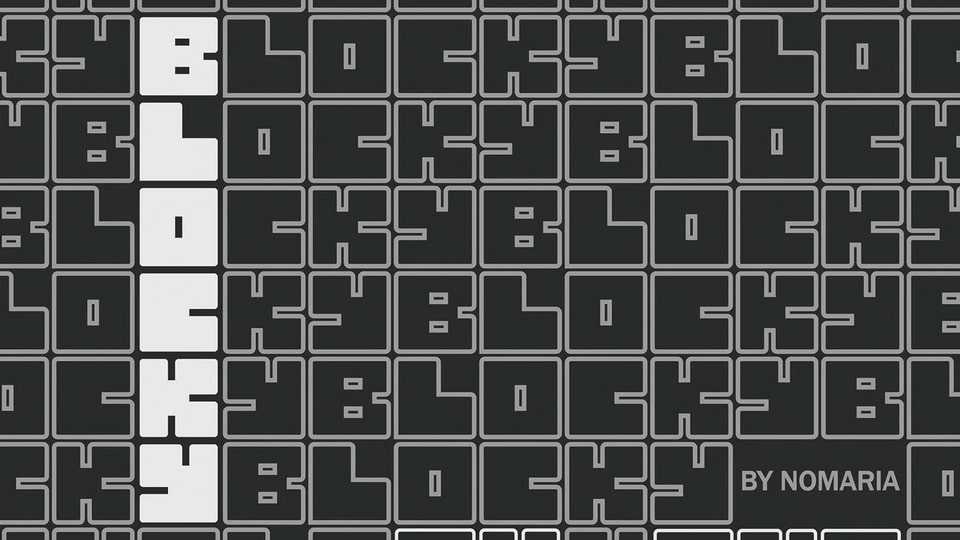
Download Blocky font, a monumental, heavy-duty display typeface built entirely from a strict rectangular grid. Its bold, monolithic shapes create a sense of strength and structure
Designer: Maria Mamonova